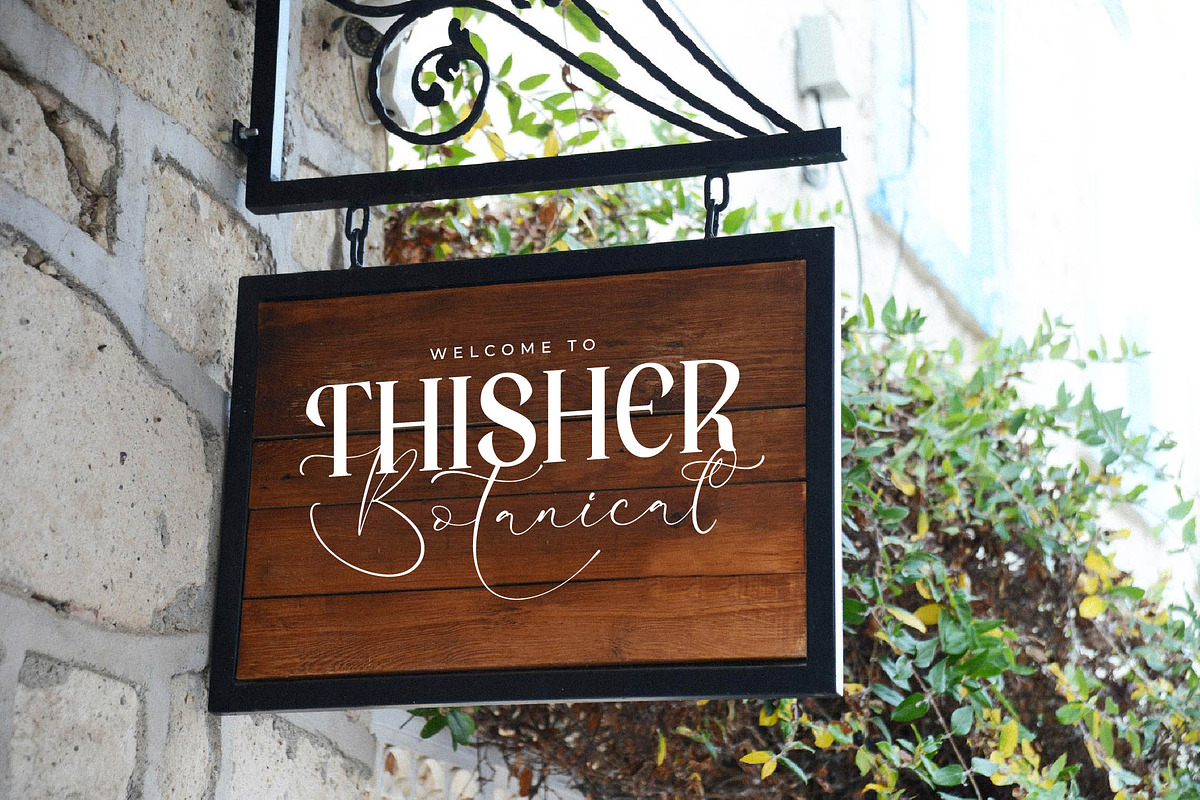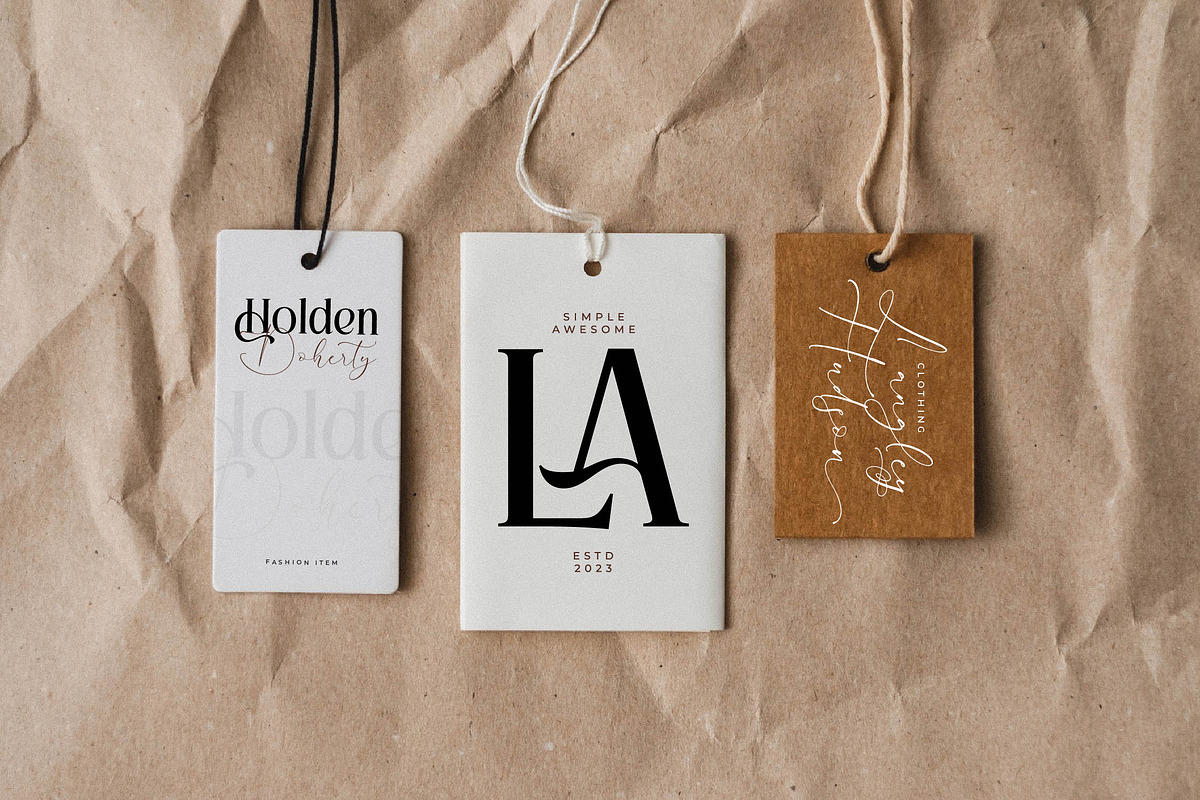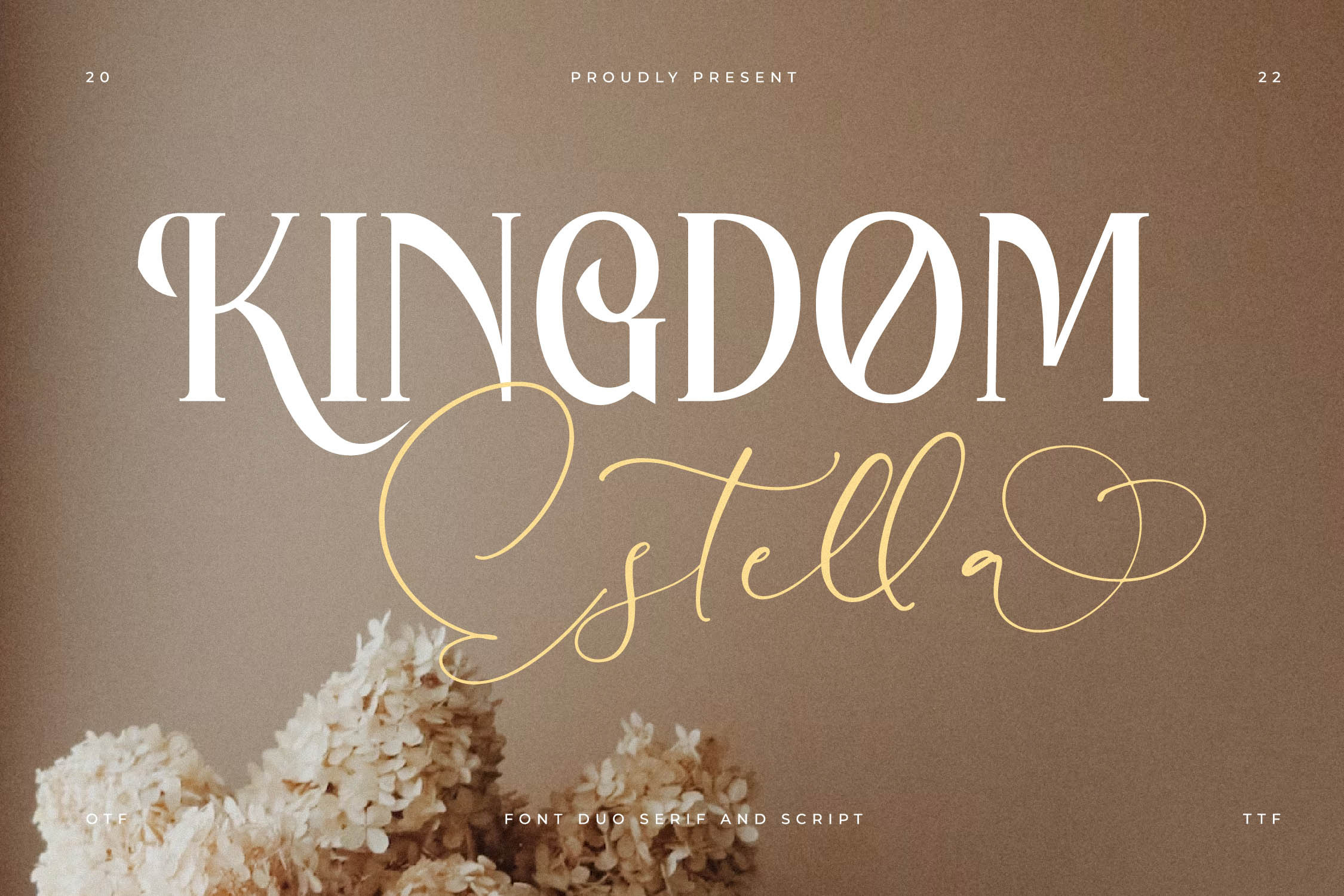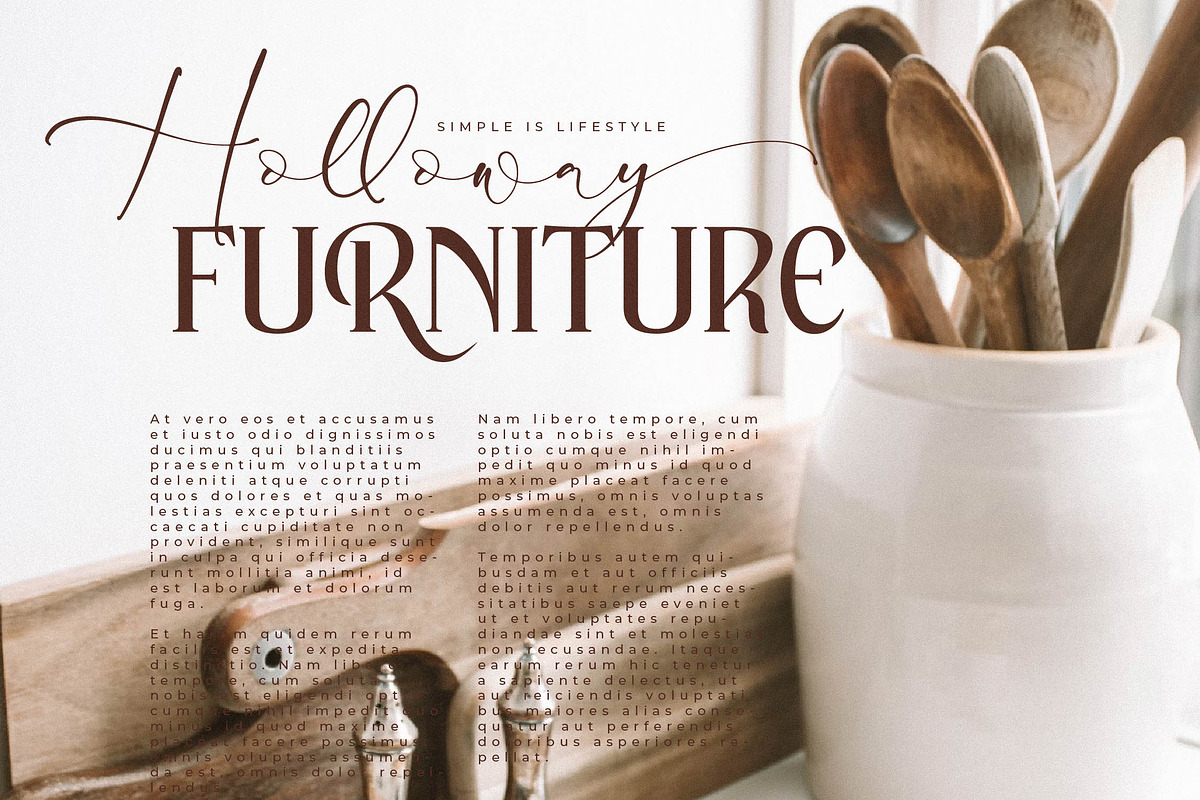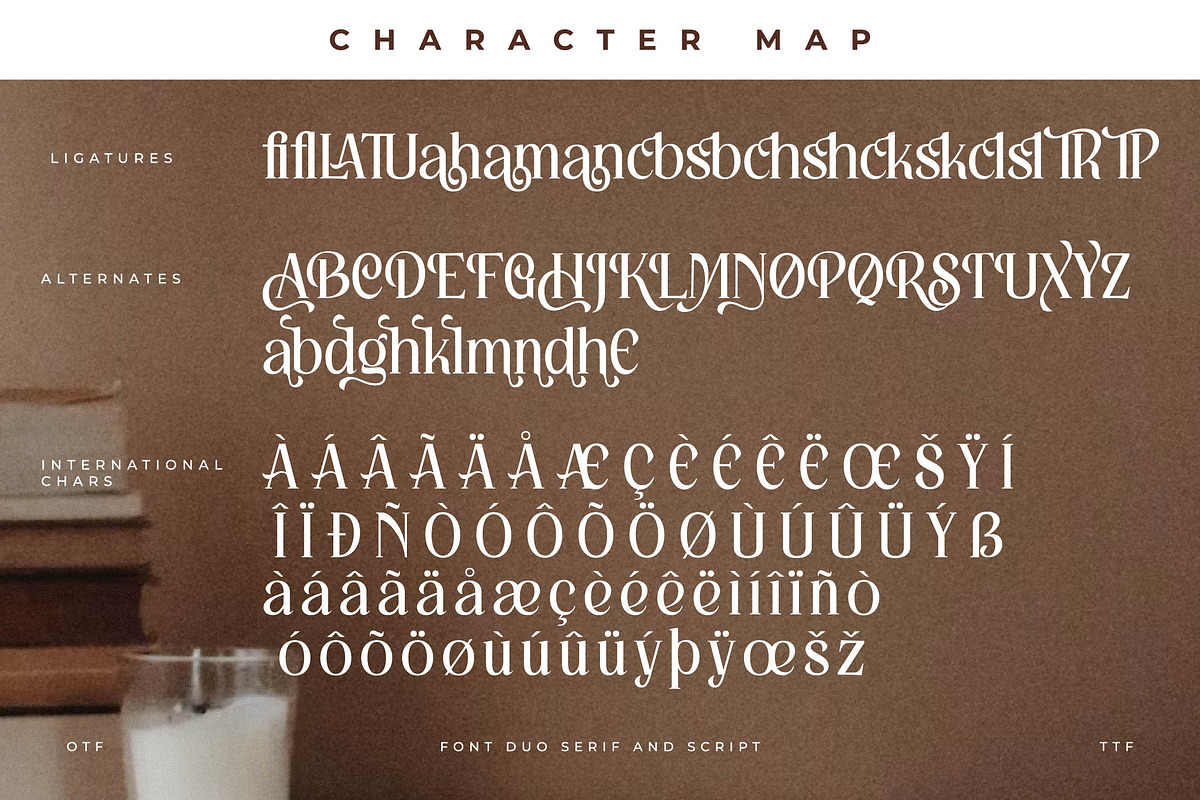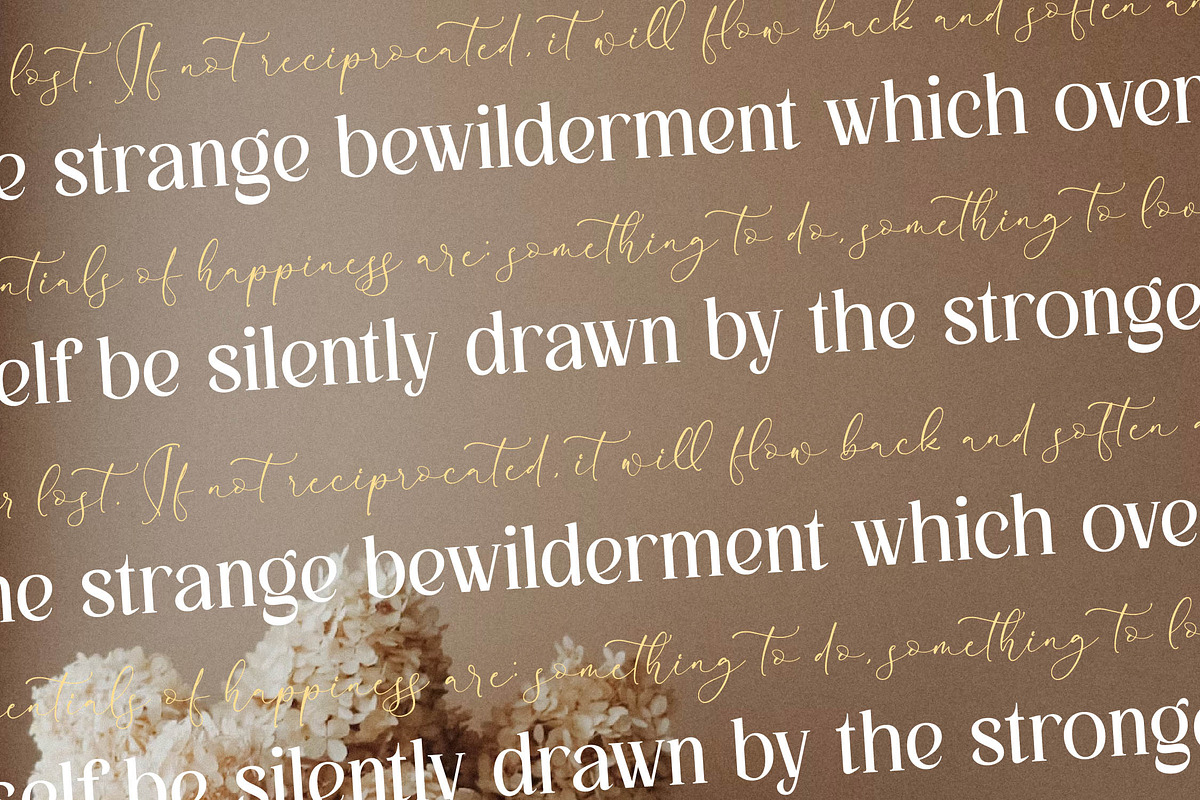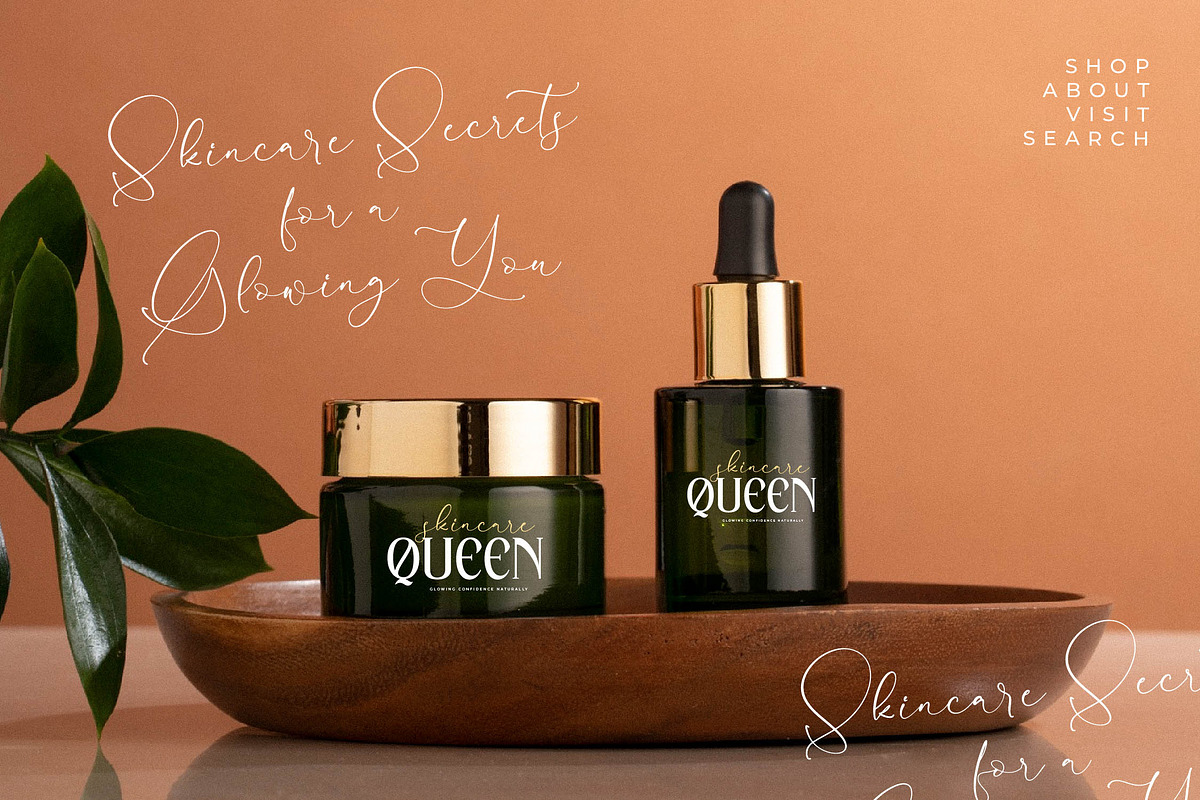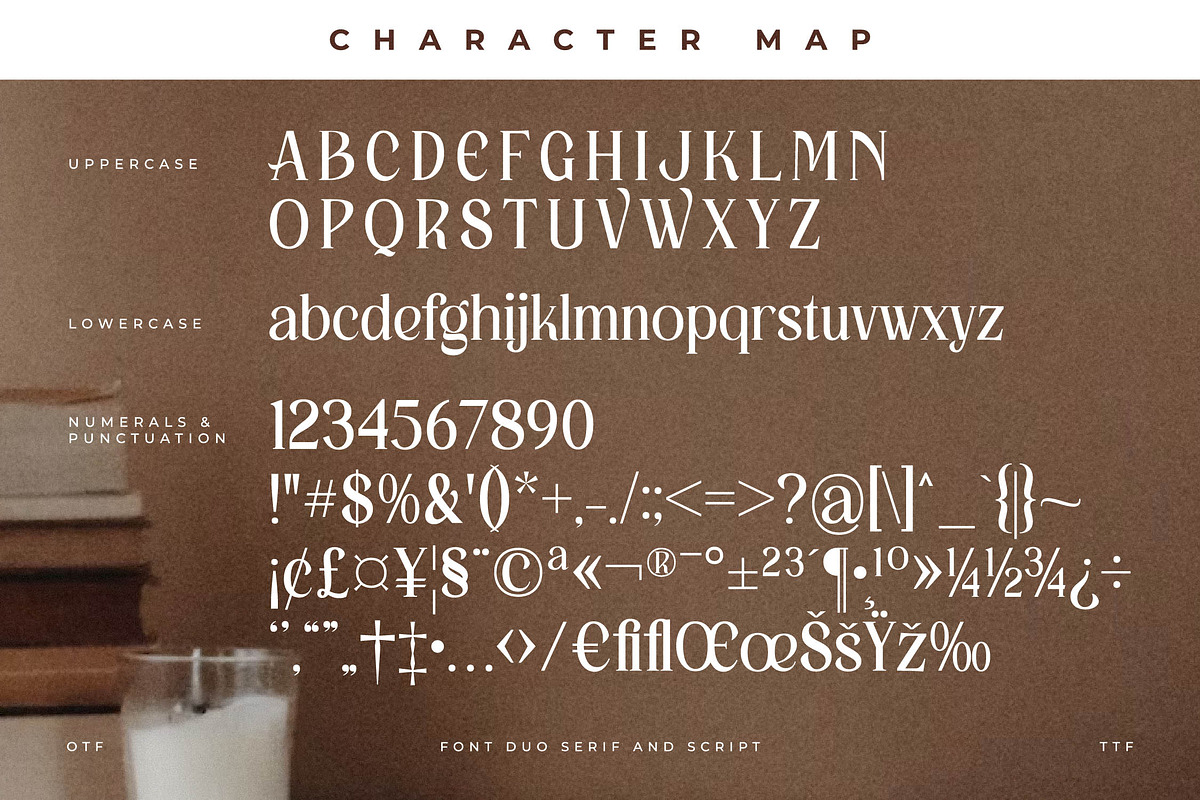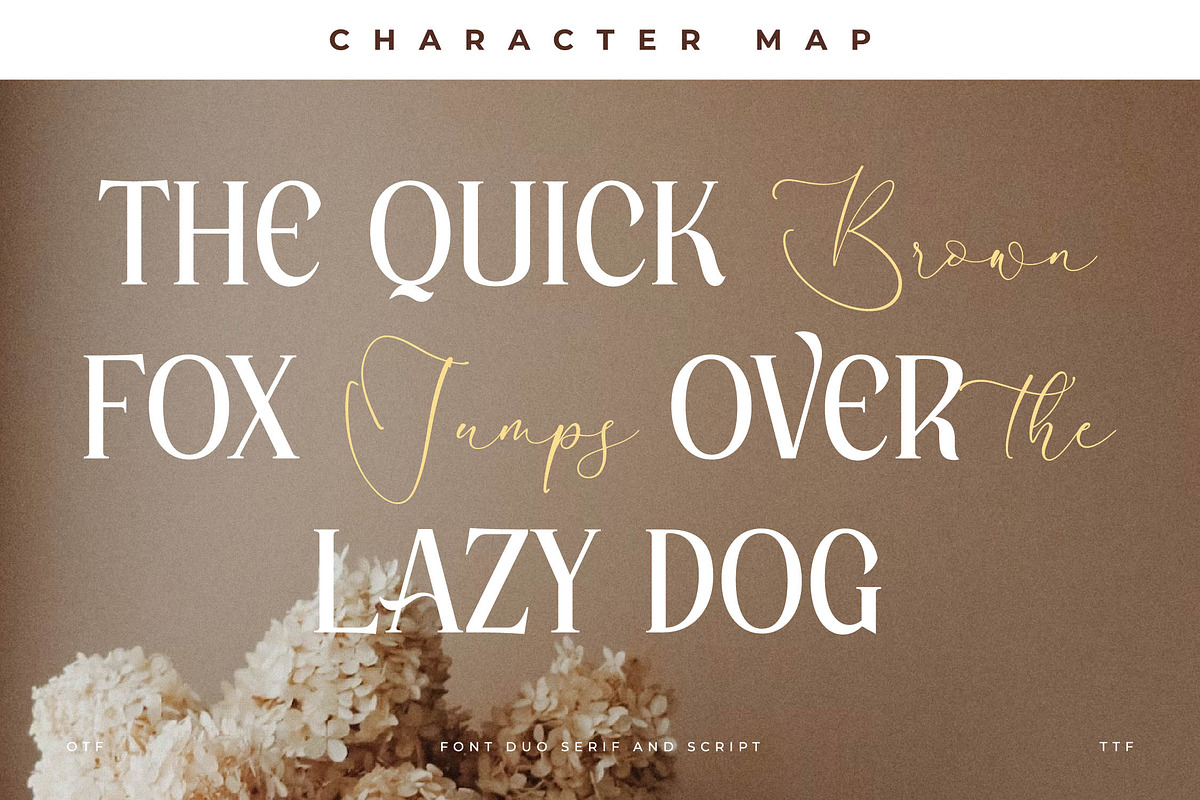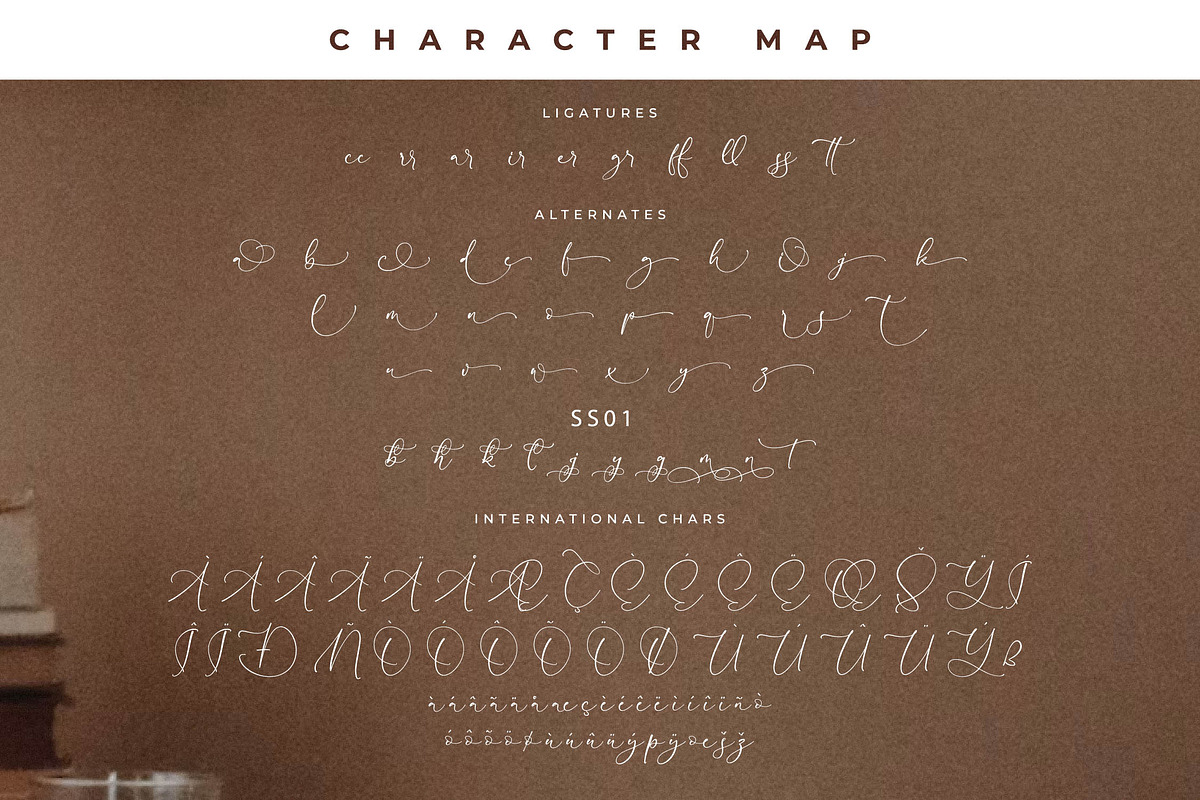
Kingdom Estella Font Duo
Proudly present Kingdom Estella Font Duo , created by Storytype, A serif and script typeface that has own unique style & modern look. This typeface is perfect for an elegant & luxury logo, book or movie title design, fashion brand, magazine, clothes, lettering, quotes, and so much more.